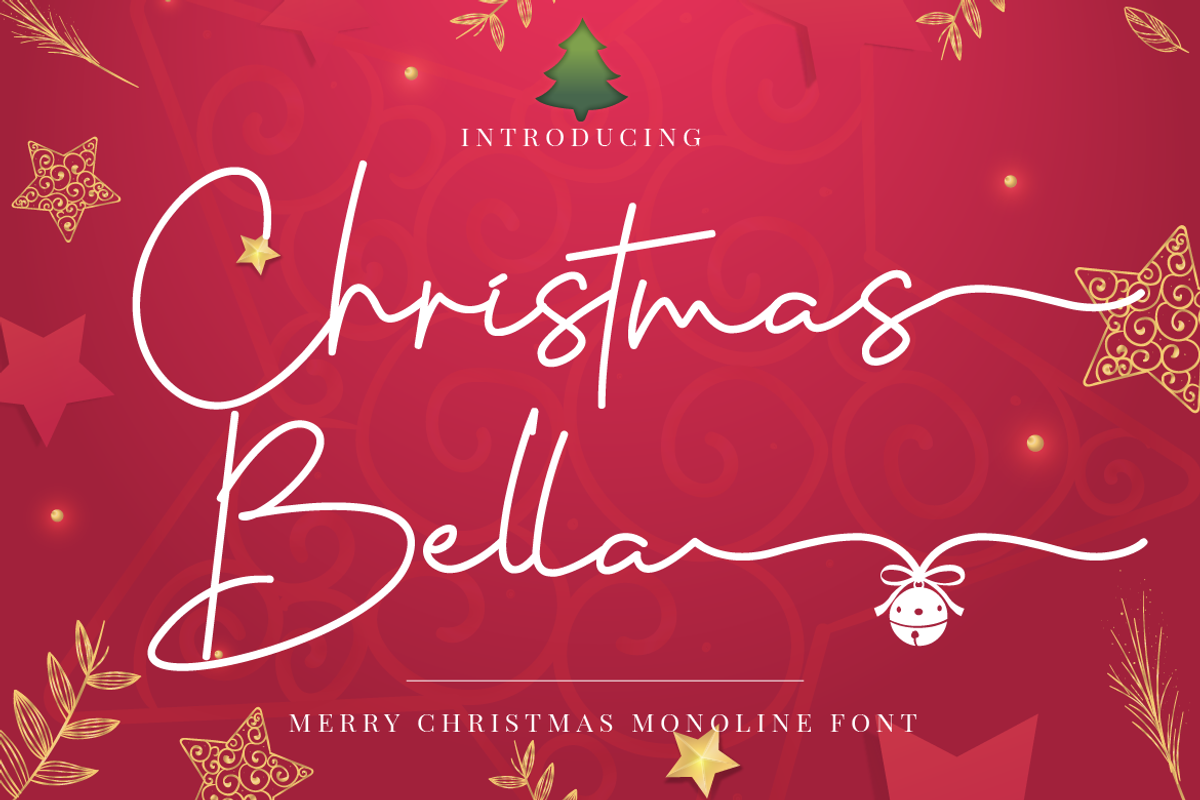
Christmas Bella Script Monoline Free Download
Christmas Bella Script Monoline Font Free Download
Christmas Bella Script Monoline Font Free Download is a festive and elegant handwritten typeface that brings holiday cheer with a graceful touch. Featuring smooth monoline strokes and flowing letterforms, this font is perfect for Christmas cards, seasonal branding, festive packaging, social media graphics, and cozy DIY crafts.
Its delicate script style adds warmth and charm to any holiday design, evoking a sense of nostalgia and handmade beauty. Whether you're creating invitations for a winter event or designing a cheerful product label, Christmas Bella adds a personal, joyful vibe.
Wrap your words in festive elegance with the timeless charm of Christmas Bella.